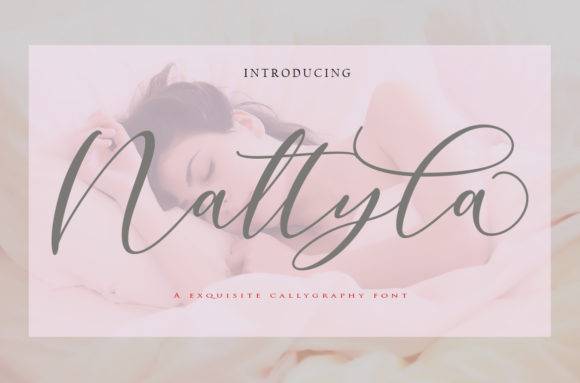
A New Nattyla Font for Cricut, Silhouette and Printable Designs
A New Nattyla is a charming and contemporary font built to perform flawlessly with Cricut and Silhouette cutting machines. Featuring clean curves and a friendly aesthetic, it's ideal for digital and print-based crafting. In addition to its versatile design, A New Nattyla pairs beautifully with other fonts, allowing for endless customization in your projects. This makes it a great choice alongside the adellicia font for cricut projects, as they complement each other perfectly. Whether you're creating custom decor, invitations, or labels, this font brings a touch of whimsy and professionalism to every design.
This font entity offers versatility for makers who want to create joyful, legible designs that look professional across vinyl, paper, and printable projects. Whether you're designing planner elements or custom apparel, A New Nattyla delivers personality and polish.
It integrates smoothly with common crafting software, making it a valuable addition to any DIY designer's toolkit.
- Custom shirts, mugs, and totes
- Printable quotes and stationery
- Planners, stickers, and tags
- Greeting cards and event invites
- Labels, signage, and home crafts
- Stylish and cheerful look with clear lines
- Great for both print and cut projects
Q: What kind of font is A New Nattyla?
A: A New Nattyla is a modern, playful font designed specifically for crafting with Cricut, Silhouette, and printable projects.
Q: Can I make printable planners and invitations with it?
A: Yes, it's ideal for printable designs including planners, cards, and party decor.